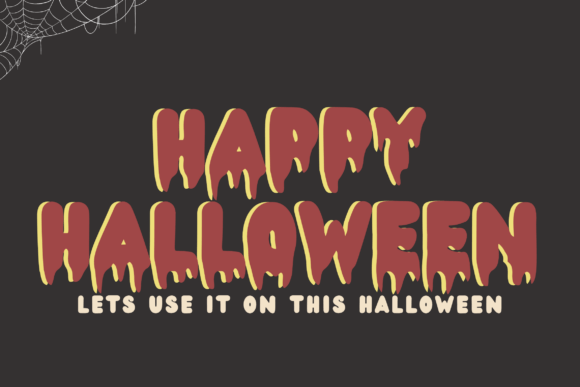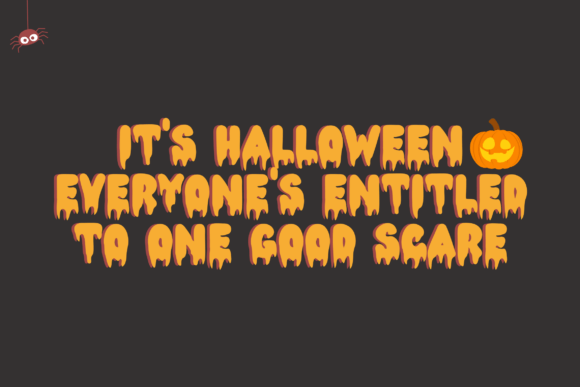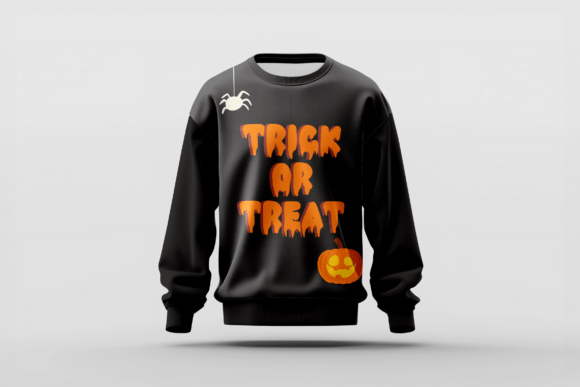
Bubble Halloween Font
Bubble Halloween Font masterfully combines mischief and mystery, giving your Halloween designs the perfect layer of spookiness. The round, robust letterforms exude a playful spirit, while maintaining an eerie undertone, making it the ultimate choice for your Halloween event invitations, posters, greeting cards or captivating social media visuals. Regardless of the project at hand – be it a chilling haunted house flyer or a whimsically spooky children’s design – Bubble Halloween Font magically blends jocularity with the macabre for a delightful Halloween feel!